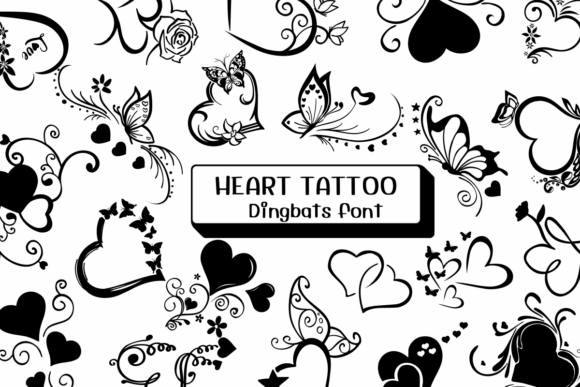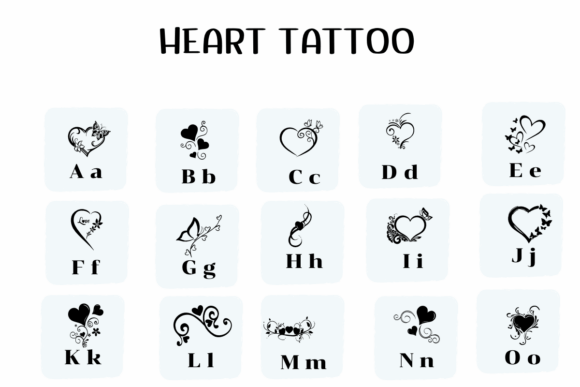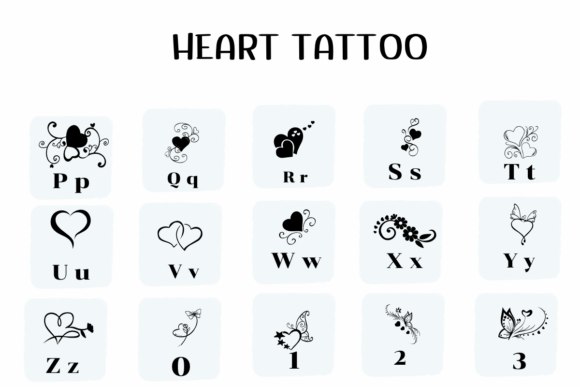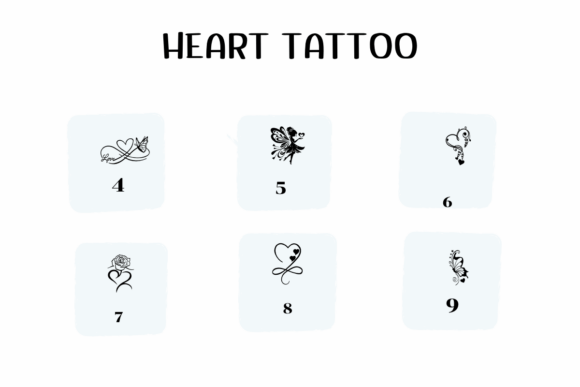
Heart Tattoo Font
About the Heart Tattoo Font
Elevate your designs with Heart Tattoo Font, a font that combines sophistication with readability. Heart Tattoo is a dingbats font with a sketched style. This font can enhance your creative projects such as wedding invitations, DIY, crafts, decorations, logos, and many other creative ideas.
Heart Tattoo’s sketched style makes it ideal for projects needing a handmade, slightly rebellious feel. It excels in logos, short headlines, and decorative elements on packaging or invitations. Avoid using it for body text or UI elements; its informal nature and lack of consistent letter spacing hinder readability in longer passages.
Pairing it with a clean sans-serif like Montserrat for body copy provides a strong contrast, balancing the playful energy of Heart Tattoo with a sense of professionalism. For a more vintage feel, consider pairing it with a serif font like Playfair Display.
The font projects a youthful, slightly edgy personality, perfect for brands targeting a creative or independent audience. Its hand-drawn quality lends itself well to projects emphasizing authenticity and artistic expression.
Heart Tattoo Font Usage Examples
Heart Tattoo Font Example